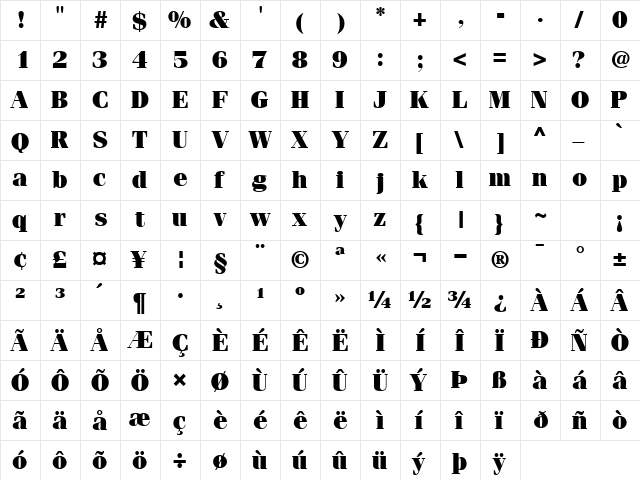
CompendiumBlackSSK Regular Font Preview
CompendiumBlackSSK Regular
CompendiumBlackSSK Regular Font Details
Design Context for CompendiumBlackSSK Typeface
CompendiumBlackSSK takes a measured approach to typography — its balanced proportions and neutral character make it a reliable workhorse for both digital and print work.